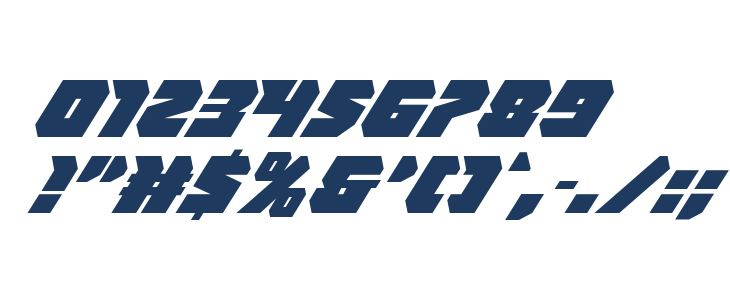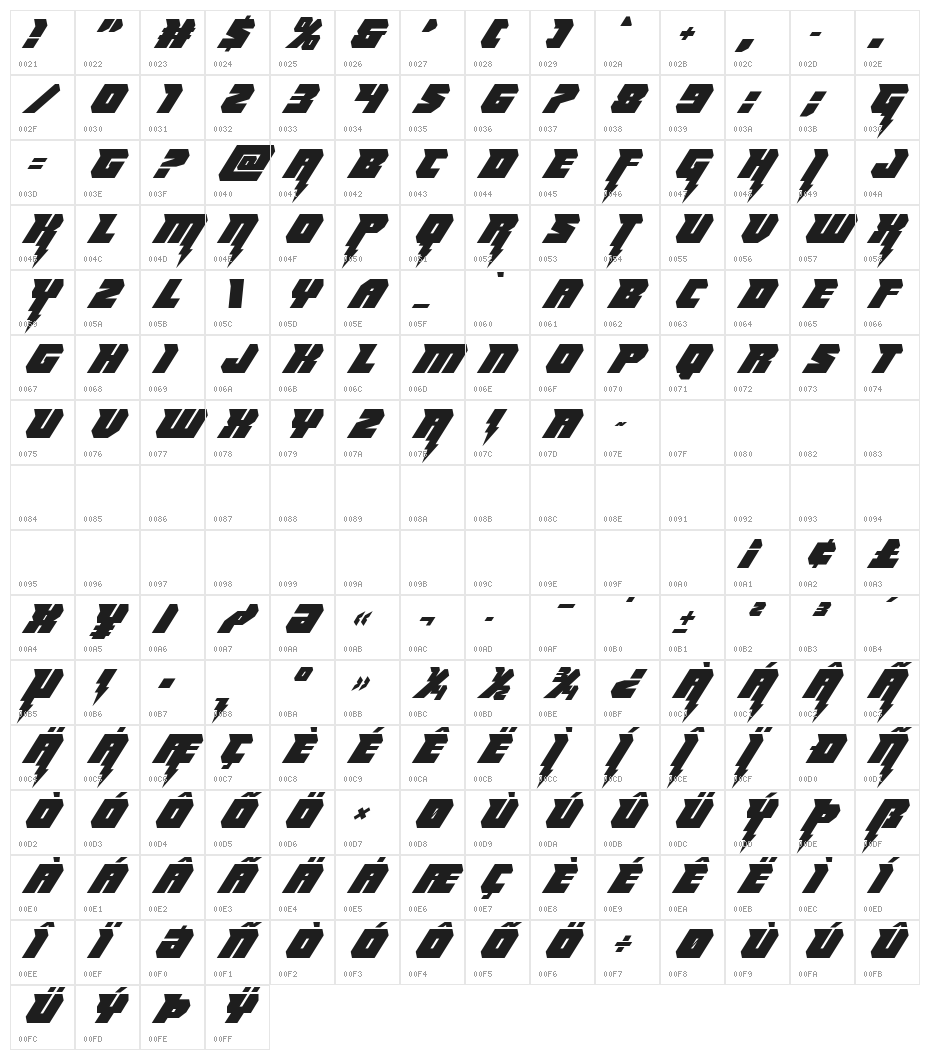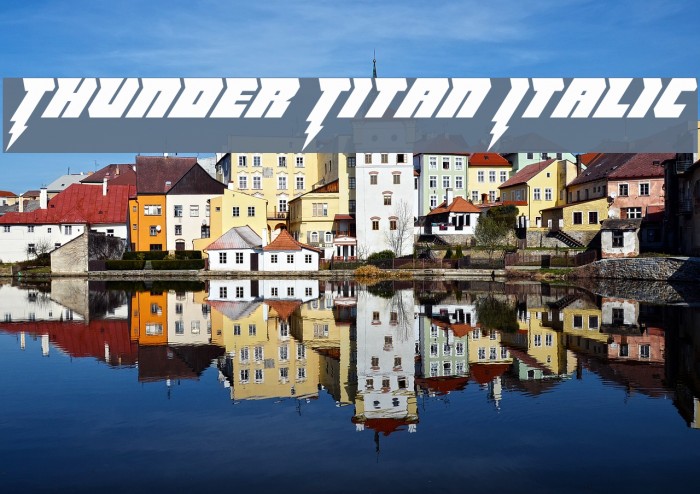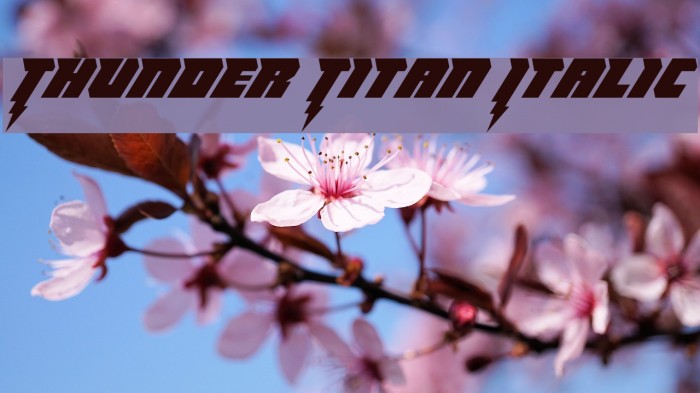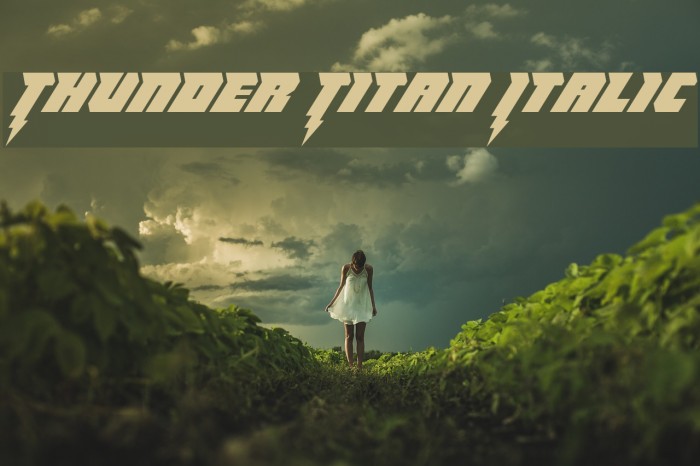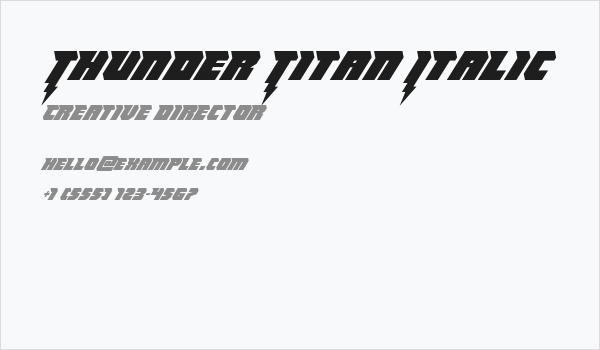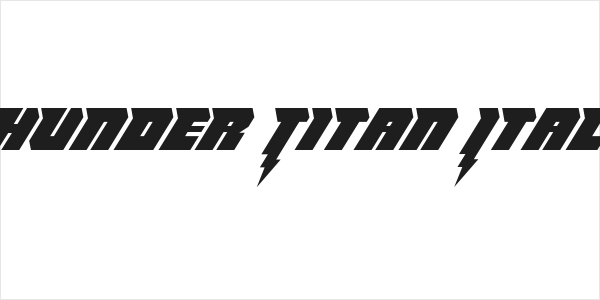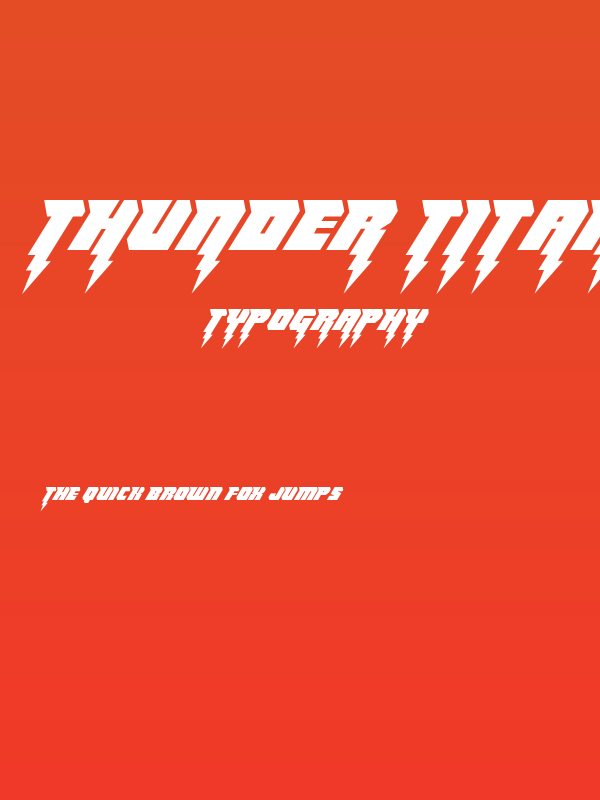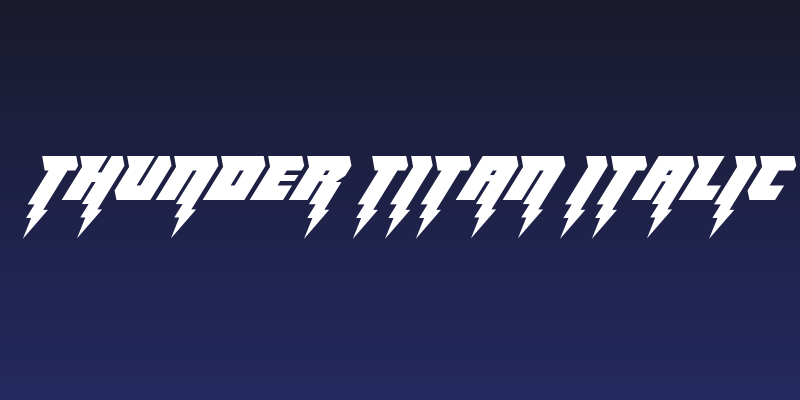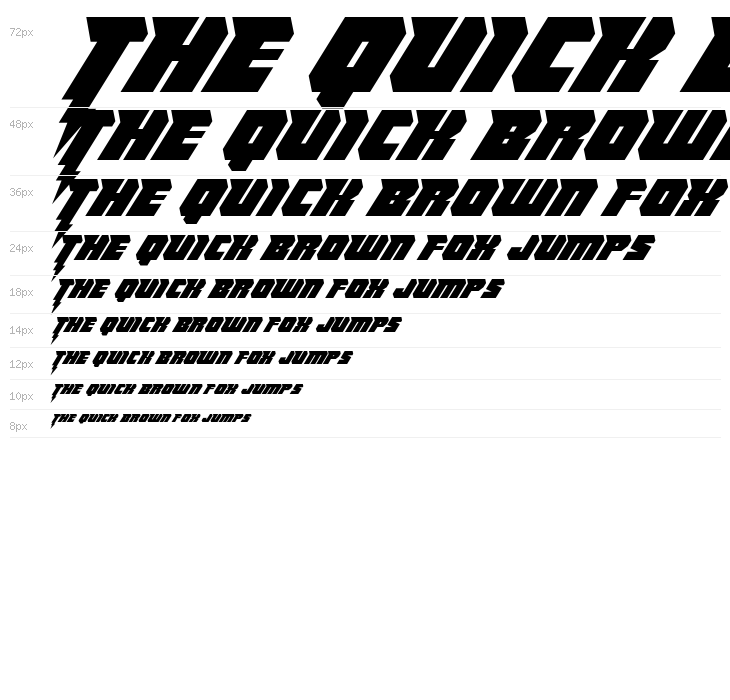
Thunder Titan Italic Font
Thunder Titan Italic Description
This font features a bold and dynamic design with a striking lightning bolt motif integrated into each character. The angular and italicized form gives it a sense of movement and energy, making it stand out prominently. The uppercase letters are particularly distinctive, with sharp edges and a futuristic style. The numbers and special characters maintain the same boldness and unique design elements, ensuring consistency throughout. This font is ideal for projects that require a strong visual impact and a modern, edgy aesthetic.
| Proposed Projects | Perfect for branding, sports team logos, music album covers, and event posters that need a bold and energetic look. |